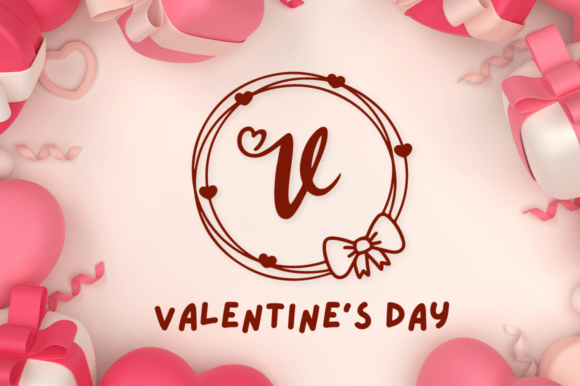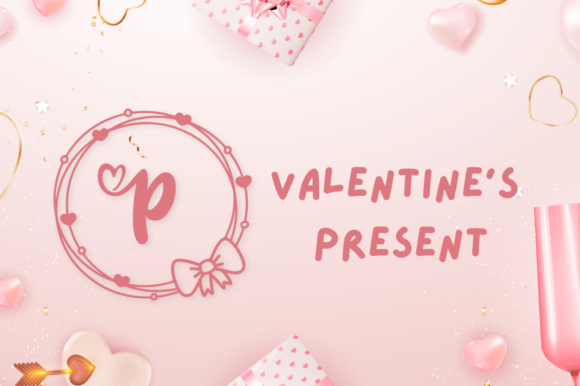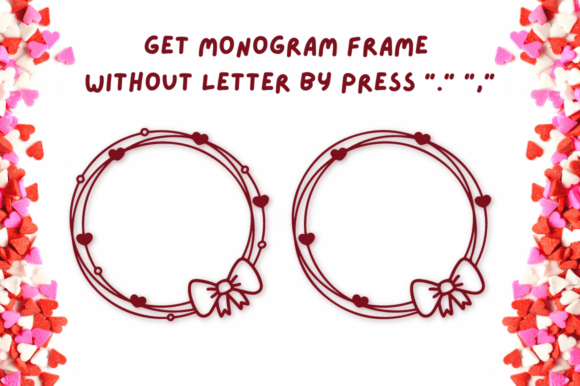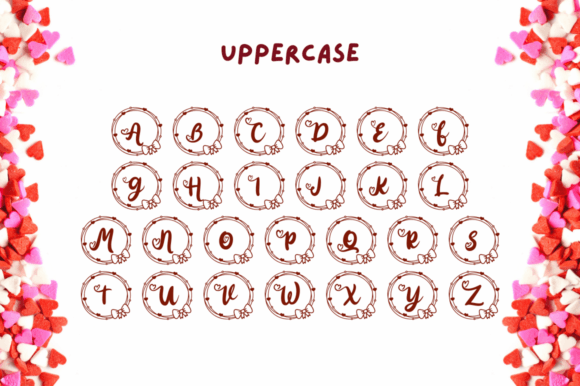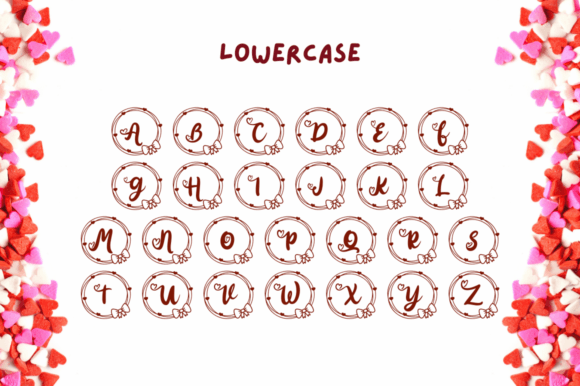
Falling in Love with Amelitha Valentine Monogram Font
I’ll never forget the time I was working on a Valentine’s Day project for a client, and I just couldn’t find the perfect font to match the sweet and playful vibe they were looking for. I scrolled through page after page of Google Fonts, tried out dozens of paid fonts, but nothing seemed quite right. That was until I stumbled upon the Amelitha Valentine Monogram Font. It was love at first sight! 💕
This adorable decorative font has become a staple in my design toolkit, and I’m excited to share my experience with you. Whether you’re a designer, crafter, or creative hobbyist, you’ll fall in love with the beautiful, lovely designs that Amelitha Valentine Monogram has to offer.
What I Love About Amelitha Valentine Monogram Font
- ✨ Cute and Playful Design: This font is perfect for creating special occasion designs, such as wedding cards, Valentine’s Day gifts, or even business logos with a touch of whimsy.
- ✅ Easy to Use: The font comes in two styles, which can be easily switched between by changing between uppercase and lowercase letters.
- 💕 Romantic and Feminine: The monogram designs are intricate and lovely, making them perfect for creating beautiful branding, social media posts, or gifts for loved ones.
While I adore Amelitha Valentine Monogram Font, there are a few things to keep in mind:
- 🤔 Limited Versatility: This font is best used for decorative purposes, and may not be suitable for body text or large blocks of text.
- ⚠️ Requires OpenType Features: To get the most out of this font, you’ll need to use a design platform that supports OpenType features, such as glyphs or stylistic alternates.
Amelitha Valentine Monogram Font was inspired by the beautiful, handmade monograms of the past. The designer wanted to create a font that would allow users to add a touch of elegance and whimsy to their designs. With its intricate details and playful vibe, Amelitha Valentine Monogram Font is sure to bring a smile to your face.